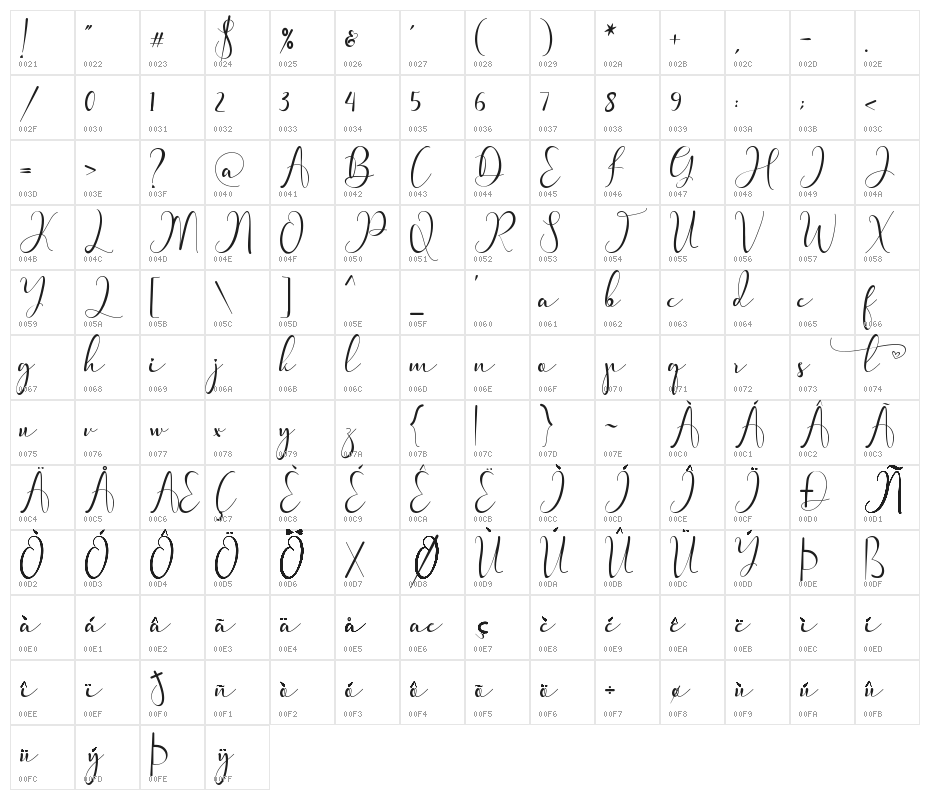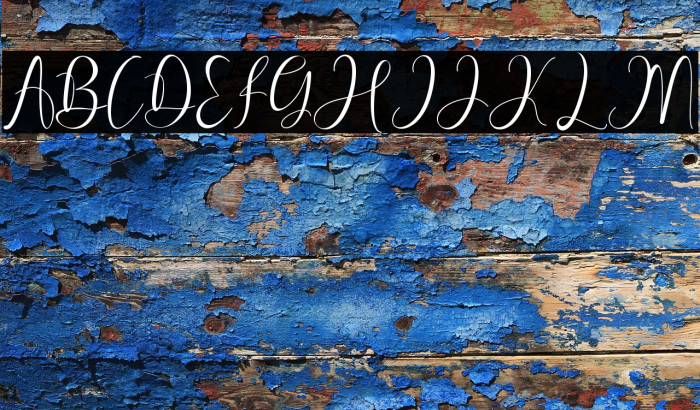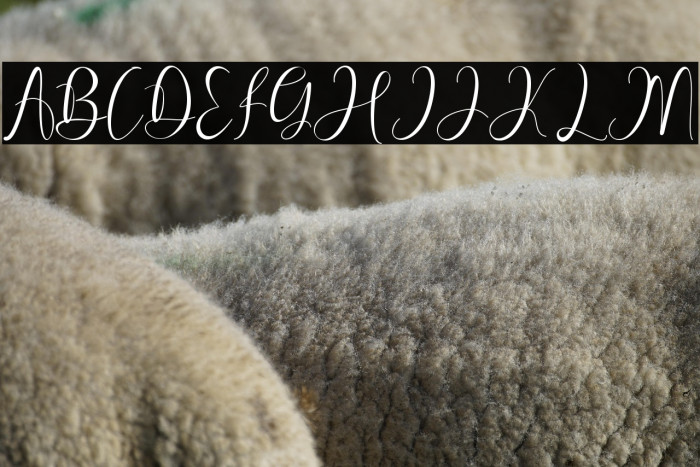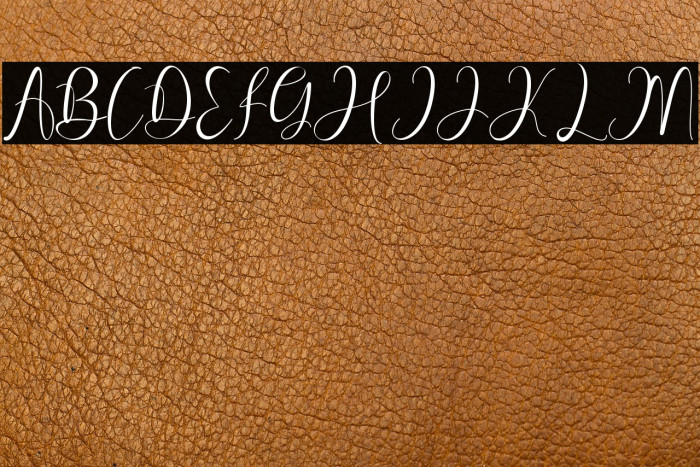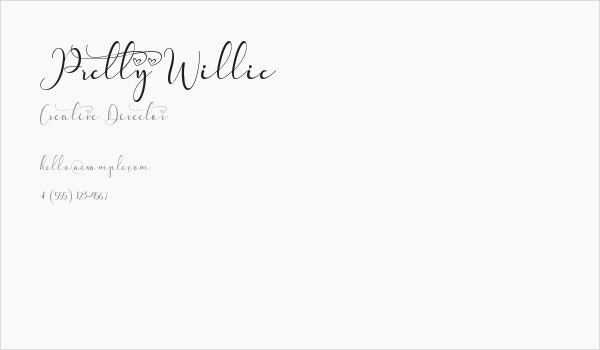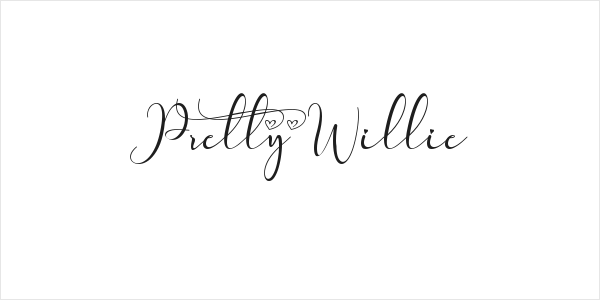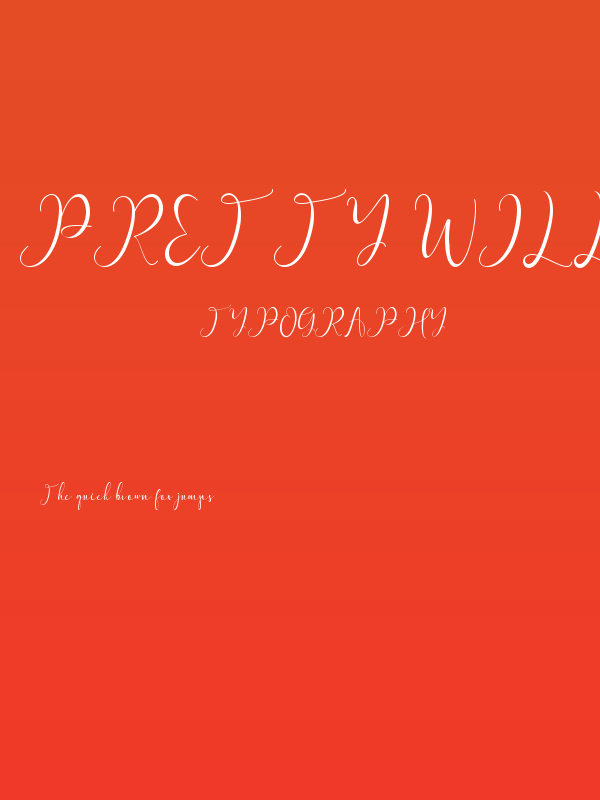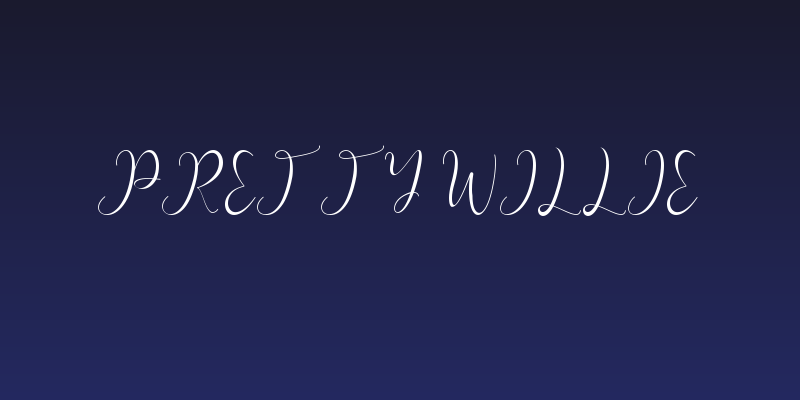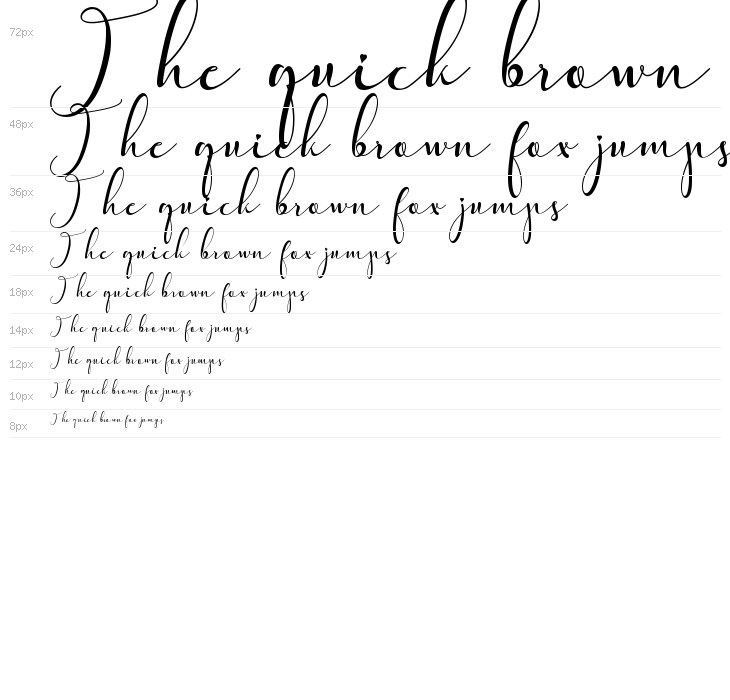
Pretty Willie Font
Pretty Willie Description
This elegant script font features flowing, interconnected letters with a graceful and sophisticated appearance. The uppercase letters are characterized by their tall, slender forms and delicate loops, while the lowercase letters exhibit a fluid, cursive style with extended ascenders and descenders. The numerals maintain the same elegant script quality, ensuring a cohesive look across all characters. Special characters are designed with the same attention to detail, adding a touch of refinement. This font's overall aesthetic is both classic and decorative, making it ideal for formal invitations, branding, and other projects that require a touch of elegance.
| Overall Style | Classic, Decorative |
| Proposed Projects | Ideal for wedding invitations, luxury branding, elegant stationery, and formal event materials. |